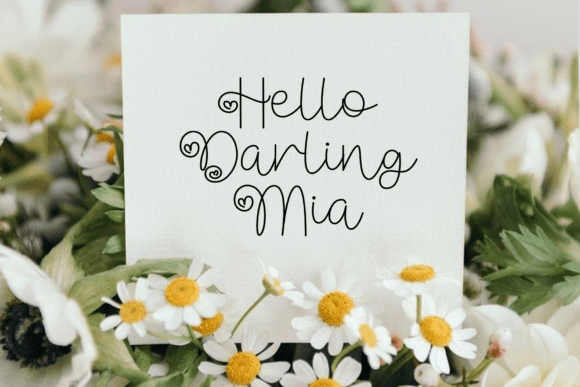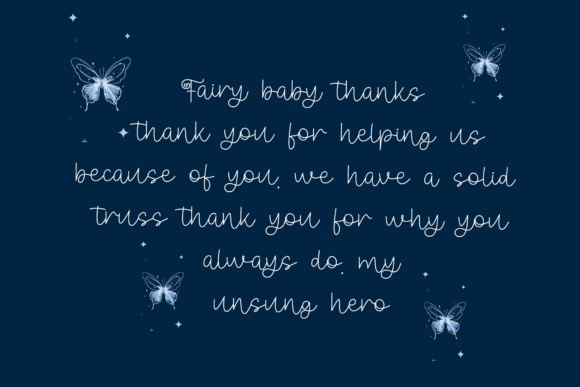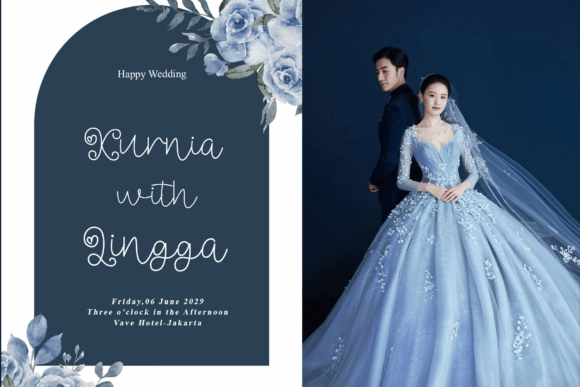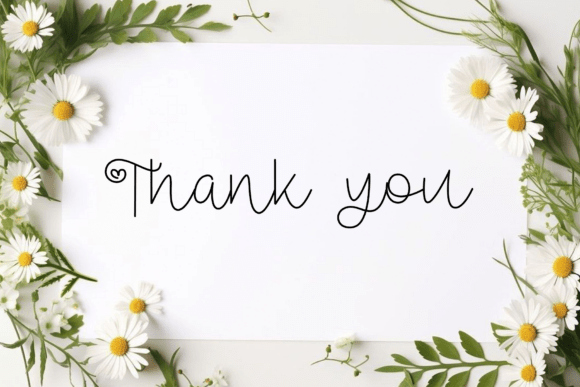
The Perfect Stroke: Unlocking the Beauty of the Butterfly Font
Have you ever been working on a design project, and the perfect font just eludes you? You envision a beautiful, handwritten script that captures the essence of your brand, but nothing seems to fit quite right. For many designers, this is a familiar creative conundrum. But what if we told you that there’s a font that can solve this problem and take your designs to the next level?
Enter the Butterfly Font, a stunning, modern script font that exudes elegance and sophistication. With its smooth, fluid strokes and lovely ornamental curves, this font is perfect for a wide range of applications, from custom sublimation designs to boutique branding and personalized gifts. Its consistent weight and clean connections ensure excellent legibility, making it a valuable addition to any designer’s toolkit.
Butterfly Font Key Features
- Font Family: Butterfly Font is a unique, hand-drawn script font designed to evoke a sense of elegance and sophistication.
- Character Count: The font includes a vast character set, covering Latin, Cyrillic, and Greek alphabets, as well as a range of punctuation and symbols.
- Unique Characteristics: The font’s distinctive, swirling lines and organic shapes give it a whimsical and romantic feel, making it perfect for creative projects and branding.
Butterfly Font Review
Overall, the Butterfly Font is a lovely, delicate script font that can add a touch of whimsy to your designs. ✨ It’s perfect for projects that require a light, airy feel, such as wedding invitations, children’s books, or even social media graphics.
- Delicate and elegant lines that evoke a sense of whimsy and romance.
- Works well in uppercase and lowercase, making it versatile for different design projects.
- Can be used in a variety of contexts, from formal to informal, depending on the context and design style.
- May not be suitable for bold or loud designs, as it can get lost in the background.
- Some characters may not have perfect spacing, which can affect the overall flow of text.
- Not ideal for very small text sizes, as the delicate lines can become hard to read.
Overall, the Butterfly Font is a charming addition to any font collection, but it’s essential to use it thoughtfully and in the right context. With some creative adjustments and pairing with other fonts, it can be a beautiful and effective choice for your designs.
Tips for Getting the Most Out of Butterfly Font
For optimal results, use the Butterfly Font for titles and headings, as it adds a touch of elegance and sophistication to your design. You can also use it to create a whimsical and playful atmosphere in your designs.
The Butterfly Font is ideal for:
– Baby shower invitations and decorations
– Fashion and beauty branding
– Stationery and greeting cards
Alternatives to Butterfly Font
Pacifico is a beautiful script font that is perfect for creating a whimsical and elegant look. It has a flowing feel to it and works well for headings, quotes, and titles. Compared to Butterfly Font, Pacifico is more refined and has a softer look, making it ideal for formal and informal designs.
Great Vibes is a modern script font that is great for creating a fun and lively atmosphere. It has a bouncy feel to it and works well for headings, titles, and short paragraphs. Compared to Butterfly Font, Great Vibes is more energetic and has a more playful feel, making it ideal for designs that need a bit of excitement.